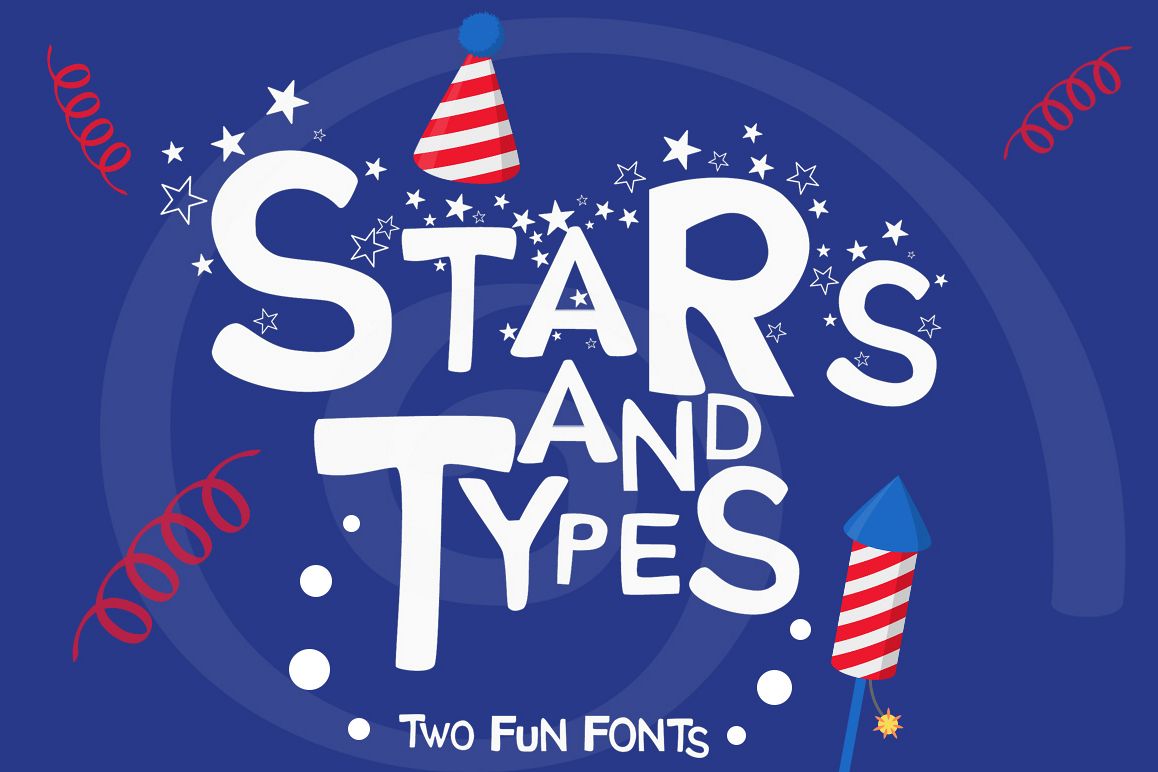
Stars and Types - 2 Fun Fonts
A funky font perfect for the 4th of July.
Stars and Types is a handlettered font perfect for crafters and more! It comes with 4 different styles: Stars Funky, Stars Regular, Types Funky and Types Regular. This is an all-uppercase font that comes only with A-Z letters and 0-9 numbers.
Types Regular
Types Funky
Stars Funky
Stars Regular